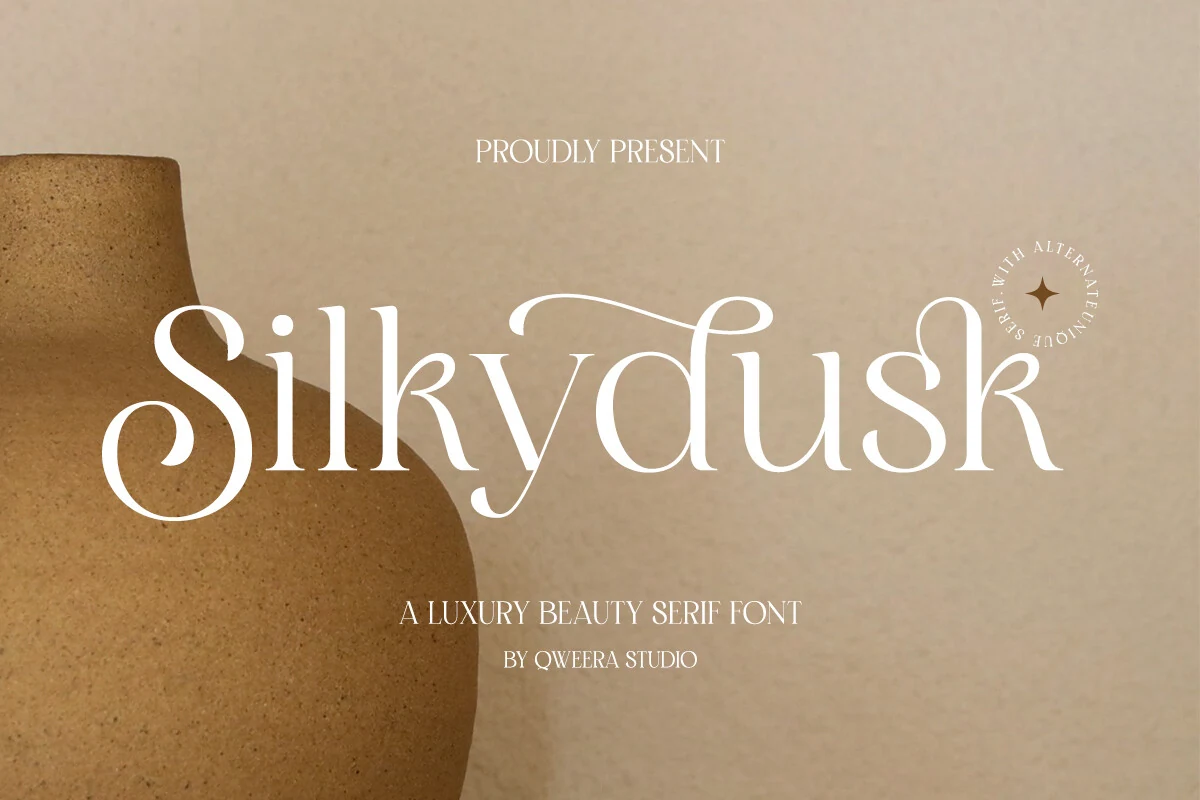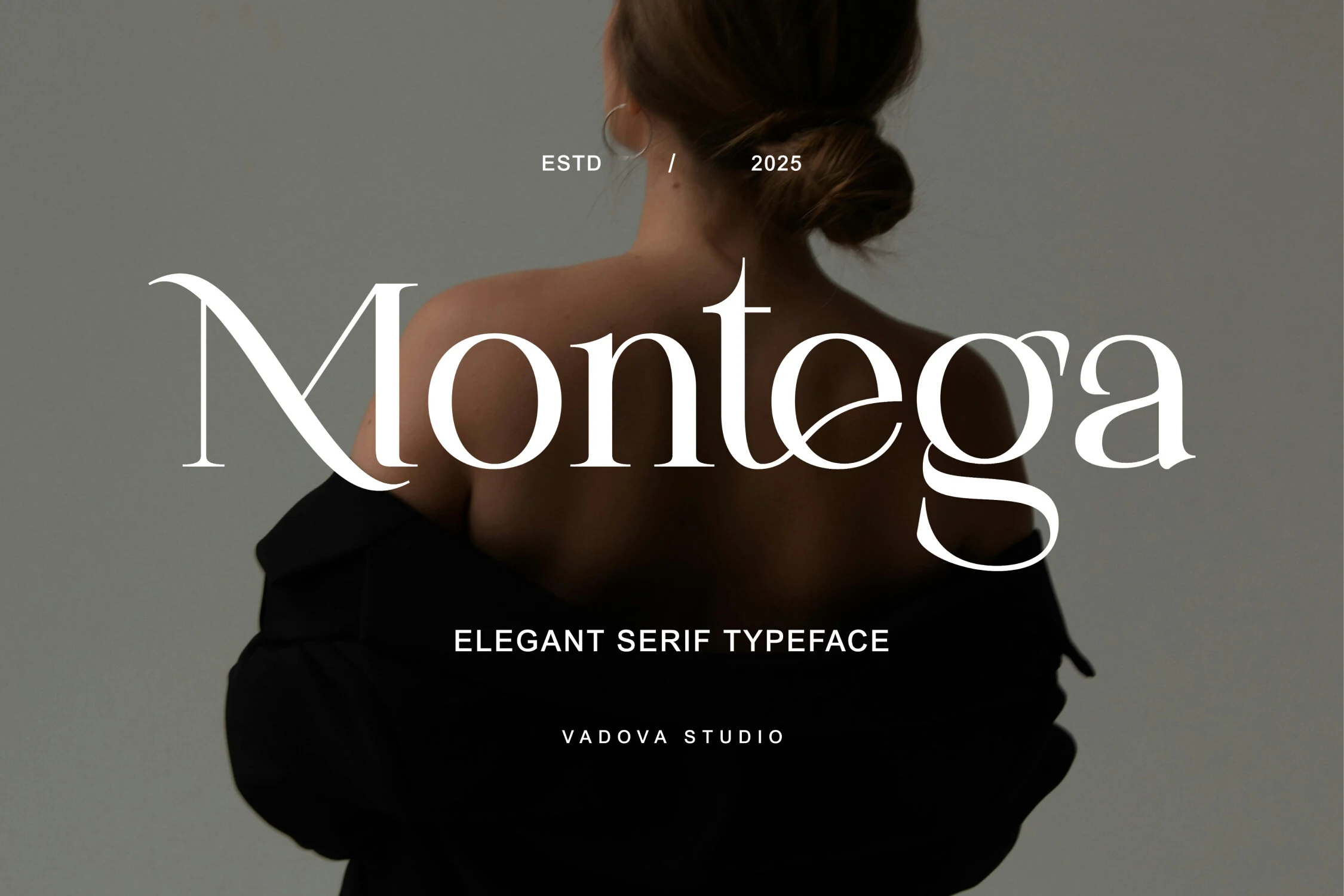
17 Best Serif Fonts for Stunning Luxury Designs in 2026
Best Serif Fonts can give logos, magazine covers, packaging, and luxury branding a sharper editorial voice. This curated list is built for designers who need high-contrast, elegant, bold, or refined serif typefaces for premium visual projects.
Bold & Dramatic Serif Fonts
These serif fonts use heavy contrast, strong proportions, and visible display details, making them best for logos, covers, posters, and headlines that need immediate visual weight.
Ronsa Font
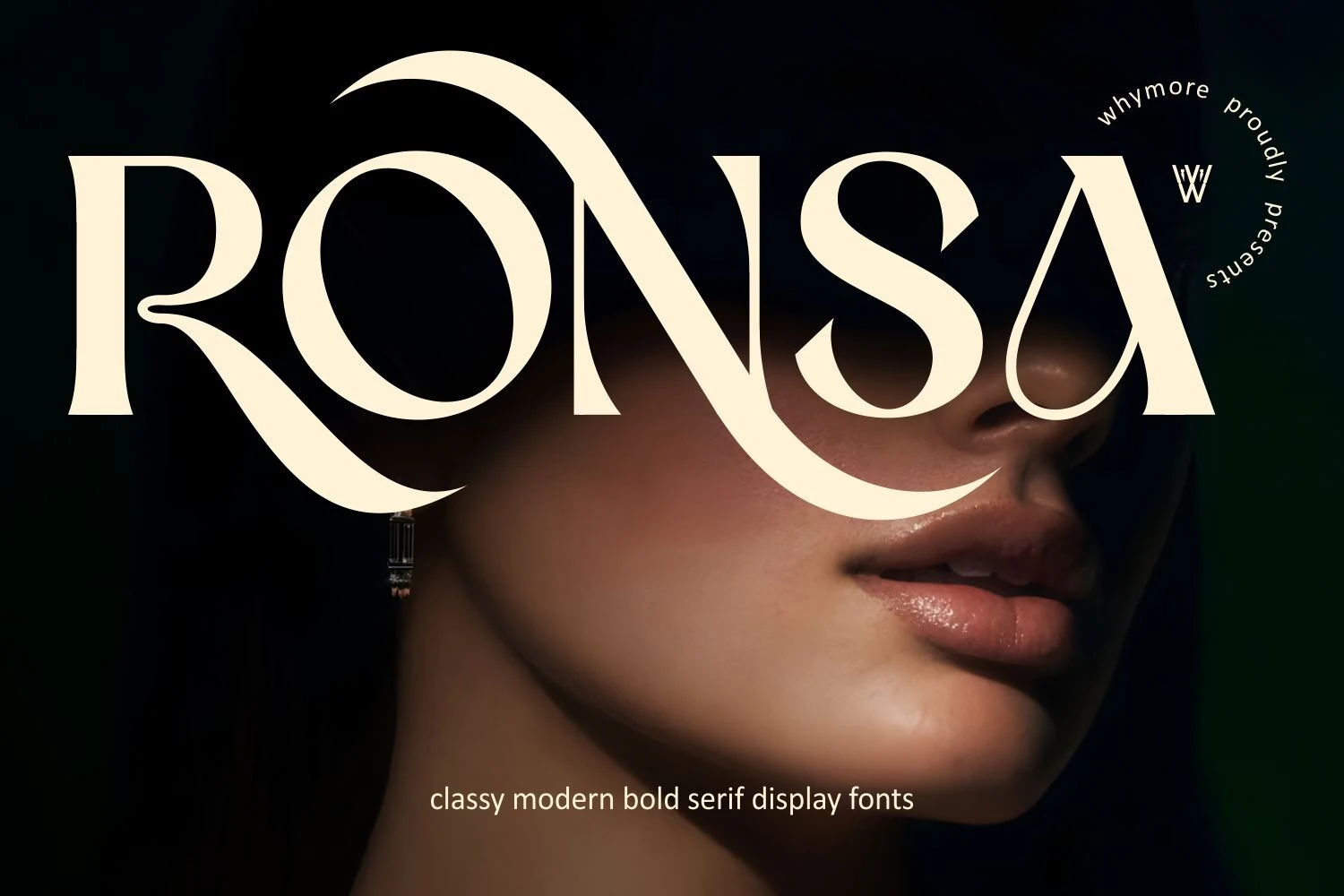
Best For: logos, magazine covers, fashion branding, luxury designs
Ronsa Font uses a bold high-contrast serif structure with wide vertical weight, thin hairline joins, flared terminals, and dramatic sweeping curves. The oversized leg of the R, curled N stroke, and sharp-cut S give it a luxury display tone without making the letters feel overly ornamental.
Ronsa fits searches for Best Serif Fonts when the design needs a strong editorial wordmark rather than quiet body text. Keep it to short titles, add enough spacing around the longer swashes, and pair it with restrained secondary type so the high-contrast shapes stay dominant.
Moon Creme Font
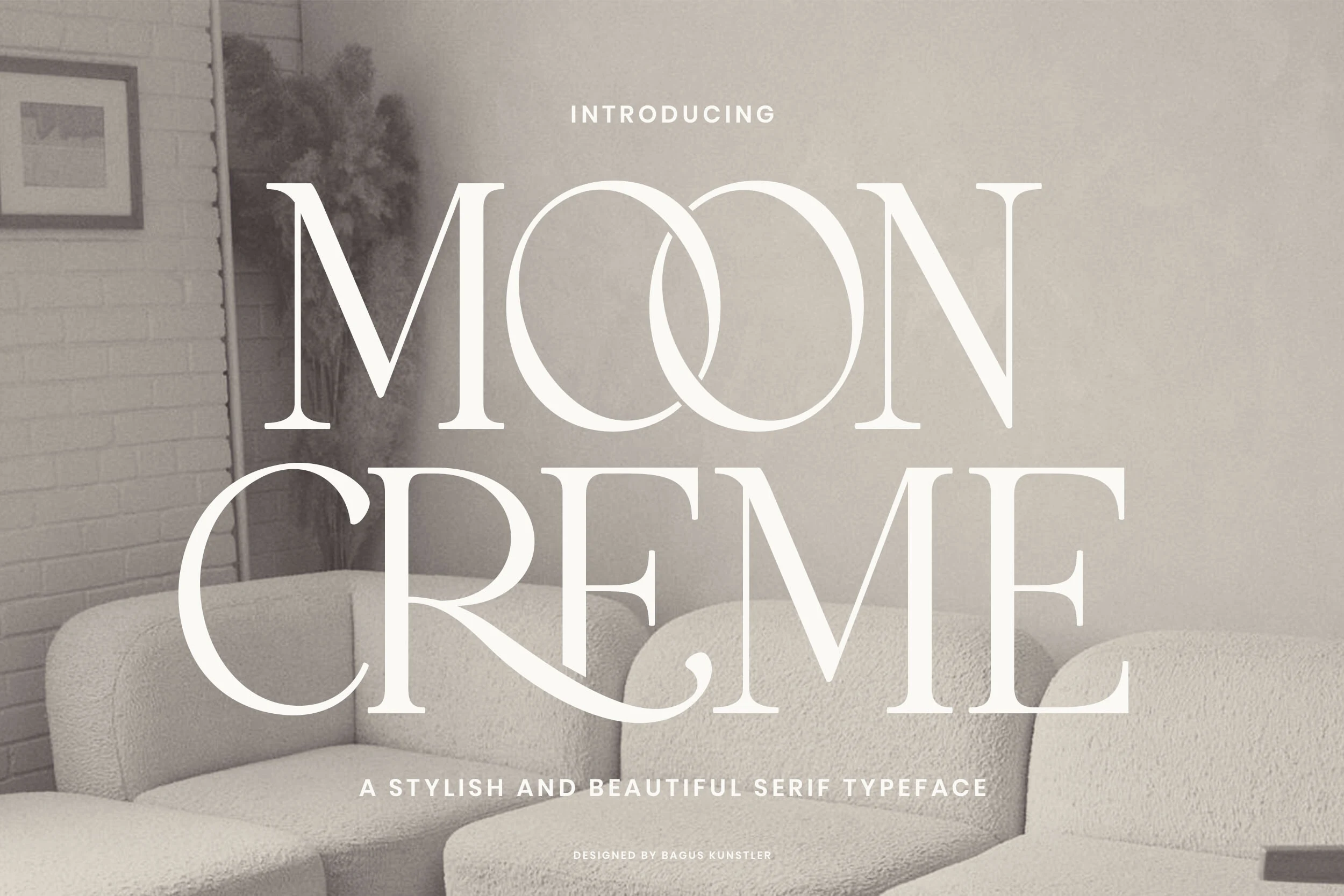
Best For: logos, magazine covers, editorial designs, luxury designs
Moon Creme Font uses tall high-contrast serif capitals, wide round bowls, and crisp hairline joins to create a polished display look. The interlocking double O becomes the visual hook right away, while the long curved leg on the R adds a vintage flourish that keeps the wordmark graceful instead of severe.
If you are exploring Best Serif Fonts for statement typography, Moon Creme works best in short headlines or logos where its contrast and decorative details have space to breathe. Keep supporting text restrained and let the title lead the hierarchy, otherwise the sweeping forms can start to compete with the rest of the layout.
Savage Roses Font
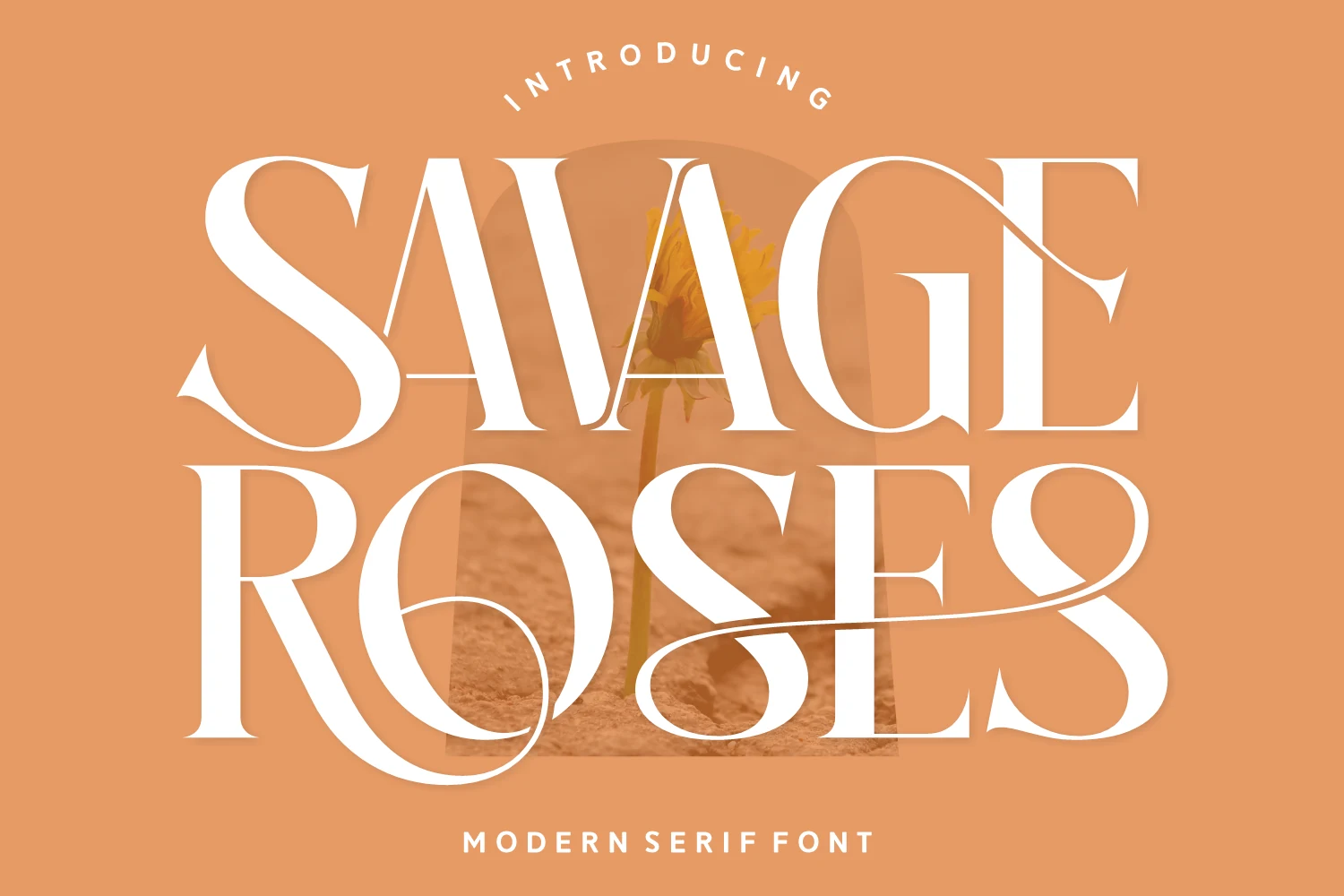
Best For: logos, headlines, fashion branding, romantic designs
Savage Roses Font has a high-contrast serif look with broad curves, crisp hairlines, and oversized swashes that give the letters a distinctly romantic pull. The dramatic S and the long looping tail on the R make it feel expressive and bold, while the overall structure stays polished rather than overly ornate.
Among Best Serif Fonts, this one works best when you want the title itself to carry the mood. Use it for short words or compact headlines, and keep the surrounding layout simple so the sweeping terminals do not compete with other decorative elements.
Things Font
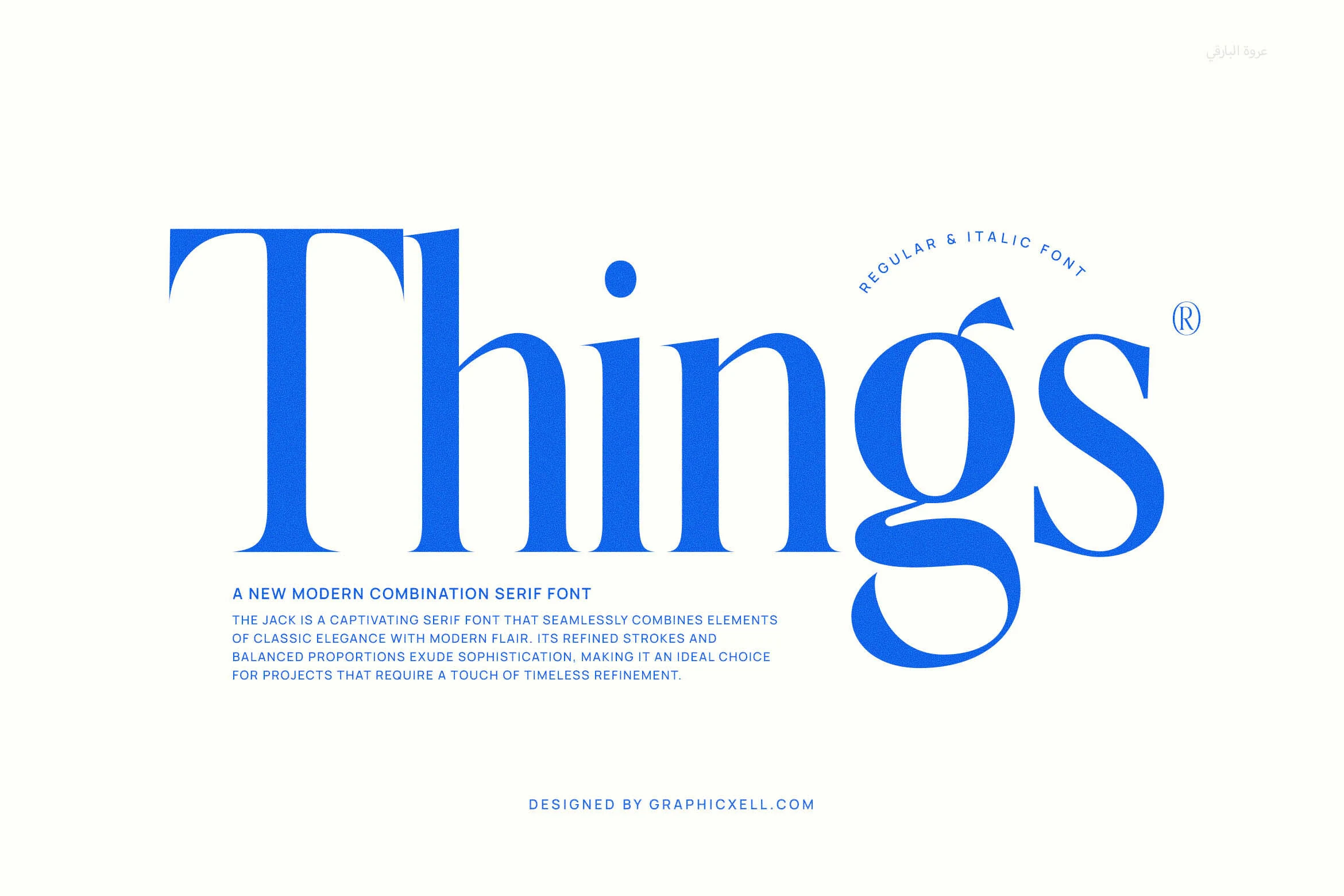
Best For: logos, headlines, website headers, editorial designs
Things Font has a striking display presence built on tall stems, sharp contrast, and smooth rounded bowls. The oversized T brings a classical opening, while the compact lowercase letters and the sweeping tail on the g add a fresher rhythm that feels clean, graphic, and confidently modern.
When comparing Best Serif Fonts, Things stands out for bold headlines and identity work where one word needs to carry the design. Keep it at display size and give that long descender room to breathe; a simple sans companion helps its crisp curves and strong proportions stay in focus.
Strong Font
Best For: logos, headlines, book covers, classic designs
Strong Font leans into bold serif structure with broad verticals, crisp wedge-like serifs, and wide rounded counters that keep the wordshape stable and clear. The large capitals create an authoritative, slightly literary tone, while the balanced contrast gives it polish without making the letters feel fragile.
For anyone comparing Best Serif Fonts, Strong works especially well for short titles, cover lines, and branding that needs presence more than decoration. Its readability holds up at medium display sizes, and pairing it with a restrained sans or compact secondary text keeps those heavy forms from overpowering the layout.
Praise Font
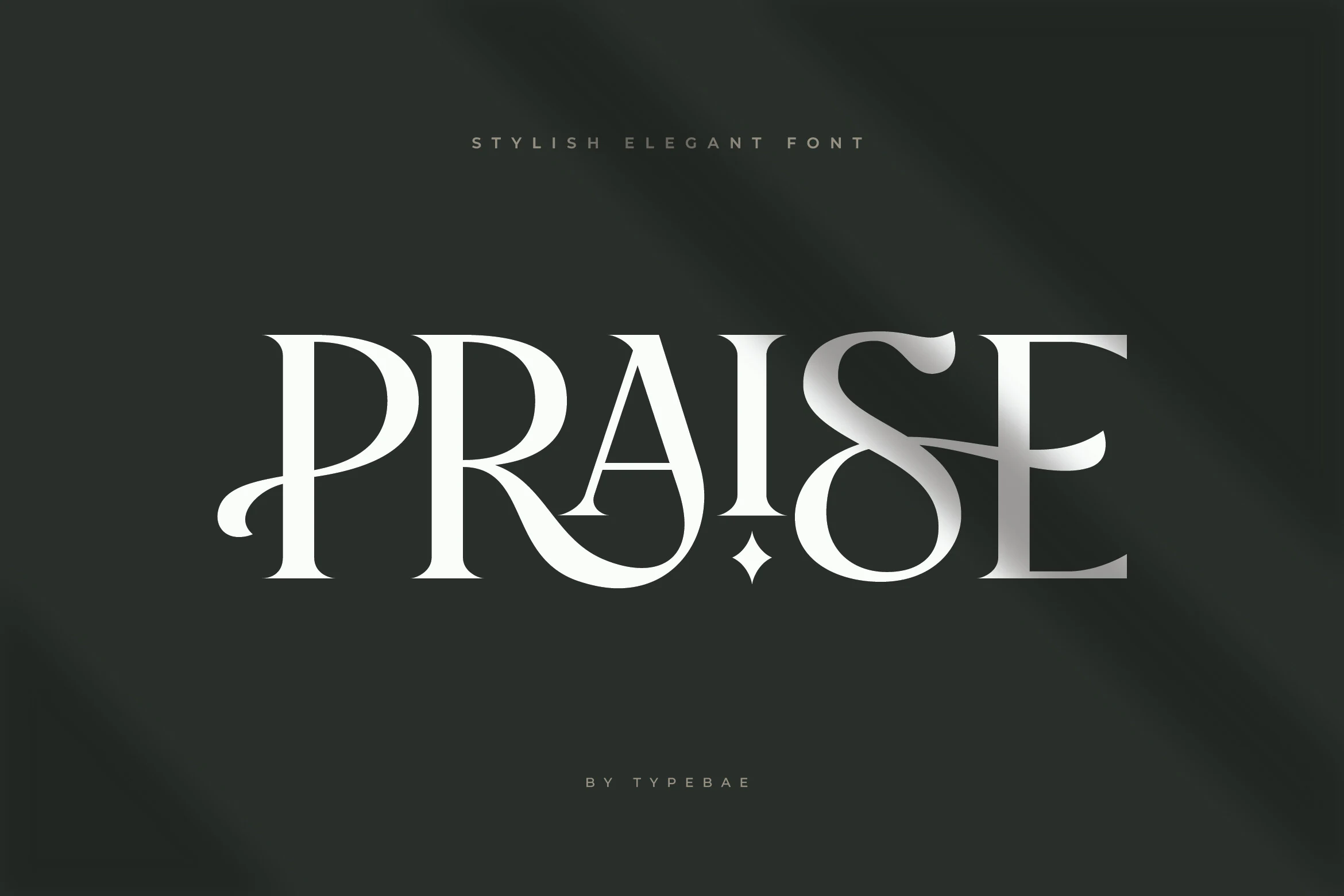
Best For: logos, branding, luxury designs, editorial designs
Praise Font uses tall, high-contrast serif capitals, narrow spacing, and smooth inner curves that give the wordmark a polished editorial edge. The curled entry on the P, sharp A apex, and sweeping S keep the style elegant without turning overly decorative.
For designers comparing Best Serif Fonts for branding, its strength is logo scale: short names, monograms, and headline words where the spacing can stay controlled. Avoid dense text; the dramatic contrast and flourished terminals work better as a focal point than as body typography.
Desevon Font
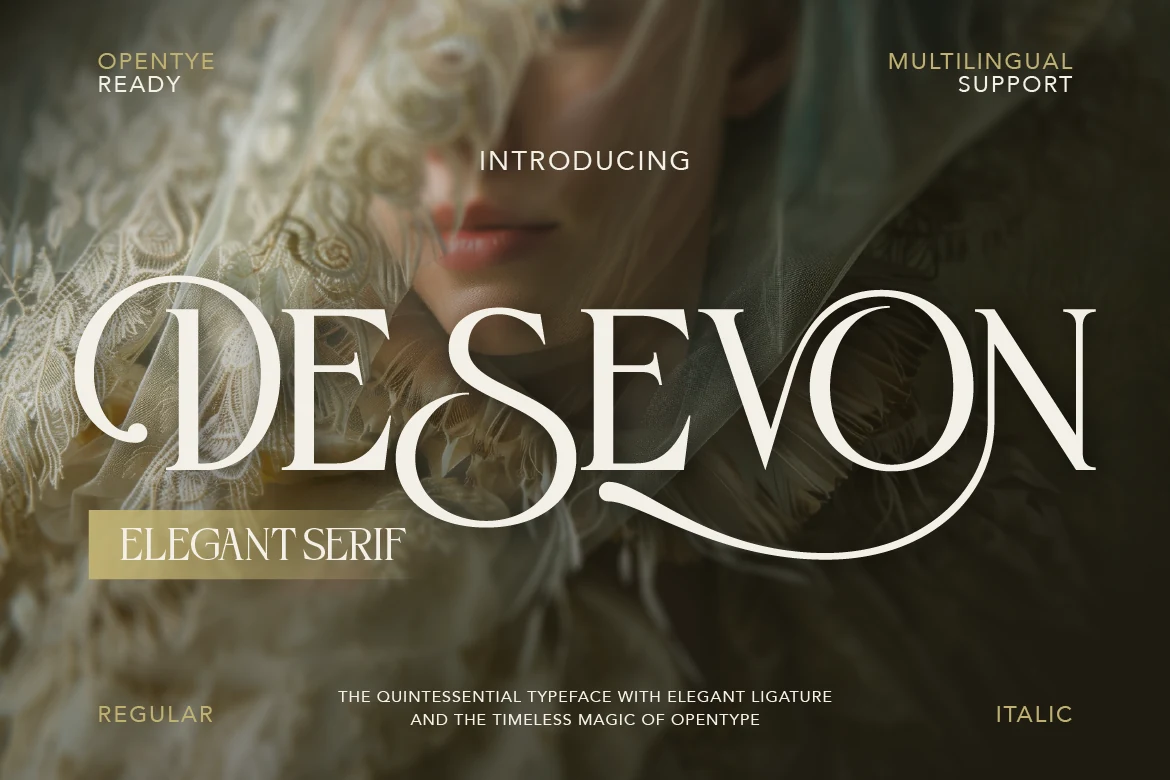
Best For: logos, branding, editorial designs, luxury designs
Desevon has the kind of serif drama that works instantly at display size: tall high-contrast strokes, narrow proportions, and sweeping ligatures that turn a single word into a finished composition. The curled terminals and extended baseline flourish give it a polished, couture feel without losing clarity.
For designers comparing Best Serif Fonts, Montage works especially well when you want a restrained luxury tone in headlines or wordmarks. Keep it at a comfortable display size and let the spacing breathe; the delicate strokes stay cleaner when paired with simple body copy and an uncluttered hierarchy.
Conclusion
When choosing from these Best Serif Fonts, start with the role of the type. Use bold and dramatic styles for logo impact, elegant luxury serifs for beauty or fashion branding, and refined editorial options when the layout needs polish without too much decoration.